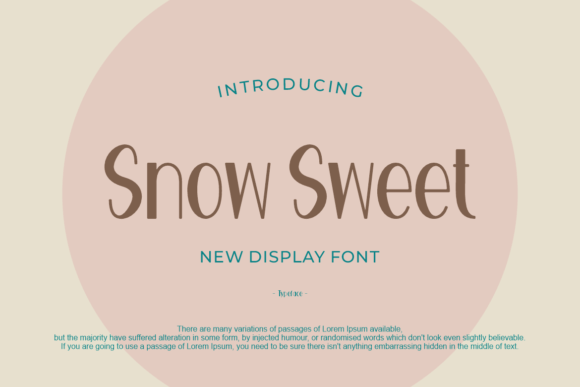
Introducing Snow Sweet Font, the captivating handwritten sans serif that will ignite your creativity and elevate your designs to new heights! Crafted by the renowned Marvadesign, Snow Sweet is a masterpiece of digital artistry that will transform your words into captivating visual expressions.
Immerse yourself in the whimsical world of Snow Sweet, where each letter dances across the screen with effortless grace. Its charming curves and playful strokes effortlessly convey a sense of warmth and authenticity, making it the perfect choice for adding a touch of personal flair to your projects.
Whether you're crafting stunning display ads that demand attention or designing eye-catching social media graphics that resonate with your audience, Snow Sweet has the versatility and charm to captivate hearts. Unleash your imagination and explore the endless possibilities that await with this extraordinary font.
Snow Sweet is not just another font; it's an invitation to embark on a creative journey where your words will come alive with captivating allure. Its meticulously crafted characters exude a timeless elegance that transcends trends, ensuring that your designs will remain fresh and captivating for years to come.
So, why settle for ordinary when you can elevate your creations with the enchanting Snow Sweet Font? Embrace its playful spirit and let its whimsical charm ignite your imagination today!